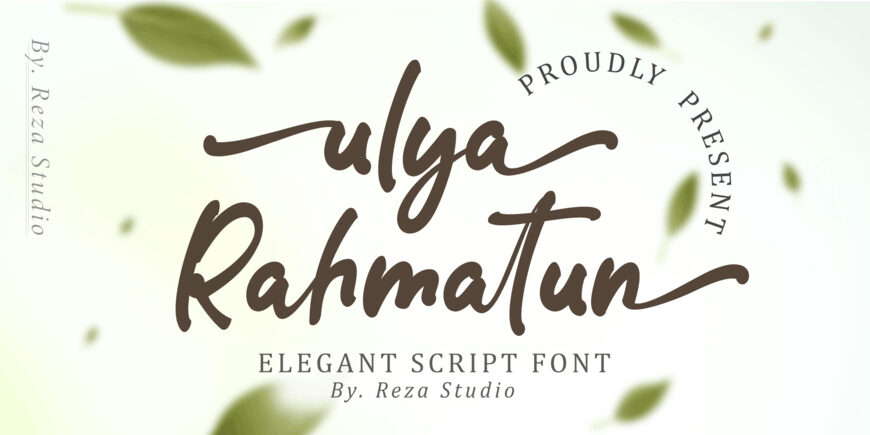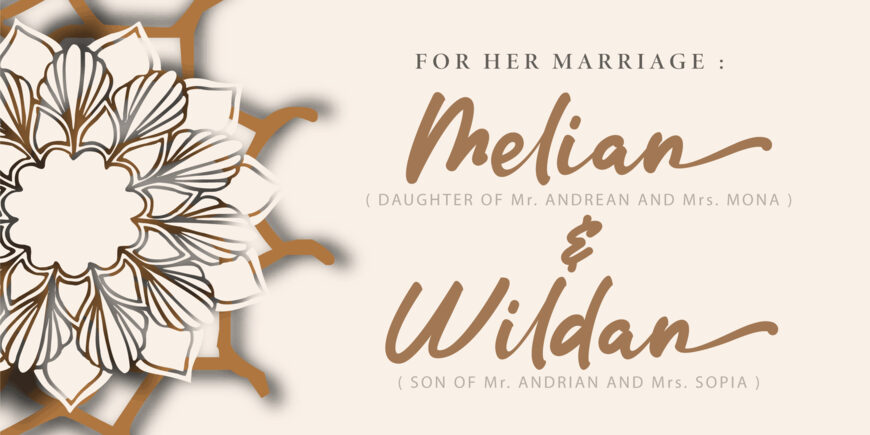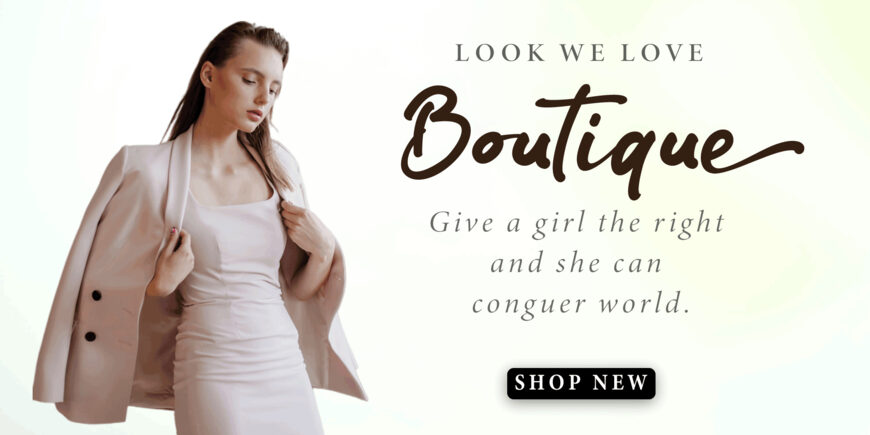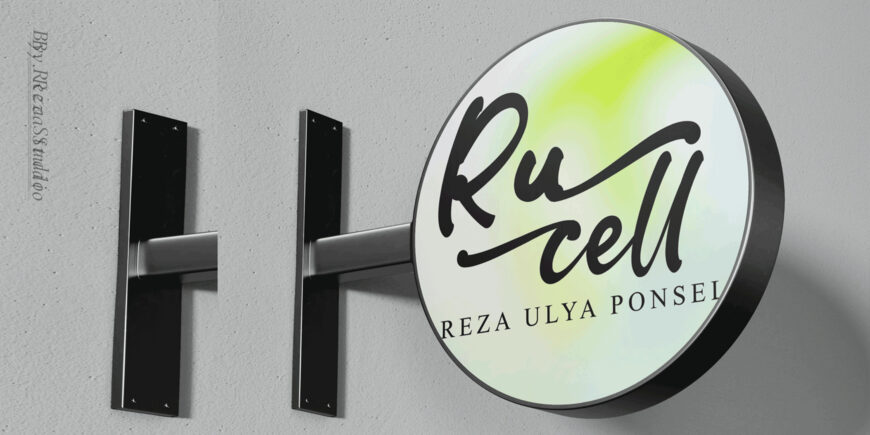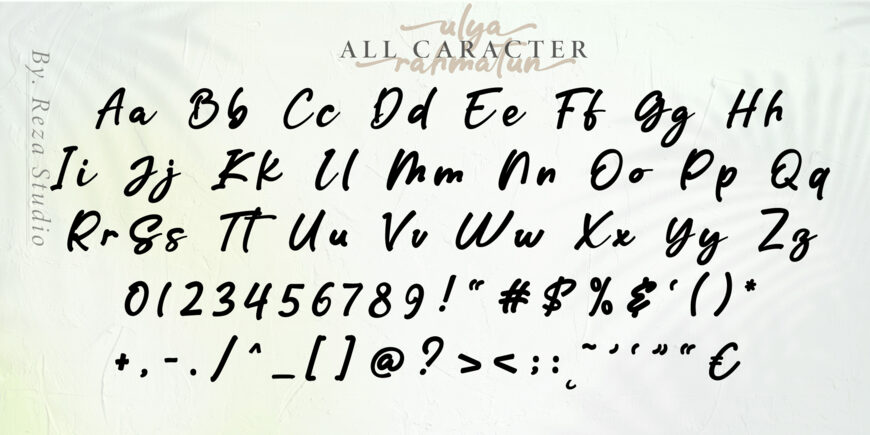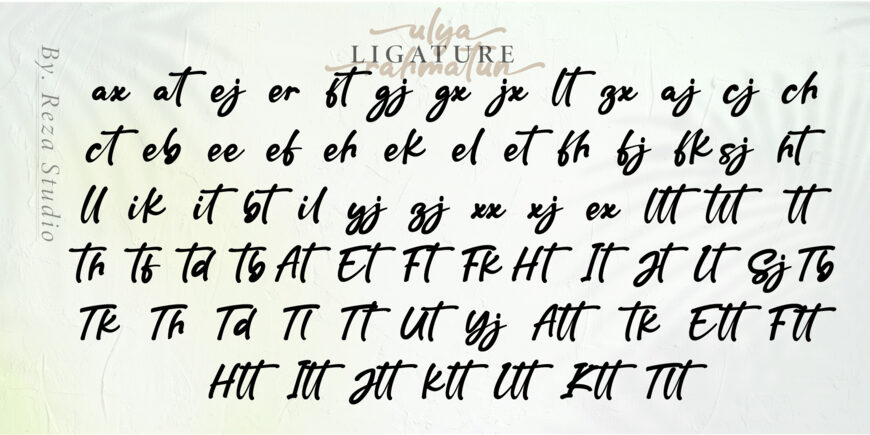
Ulya Rahmatun Font
Introducing the new modern script font, Ulya Rahmatun. This elegant script is perfect for those seeking sophistication and style in their designs, especially ideal for wedding invitations, save the date cards, and feminine branding.
Ulya Rahmatun features a complete set of uppercase and lowercase basic characters, numerals, and punctuation marks. It also includes ligatures and numerous stylistic alternates to faithfully replicate natural calligraphy (view the previews to see them all).